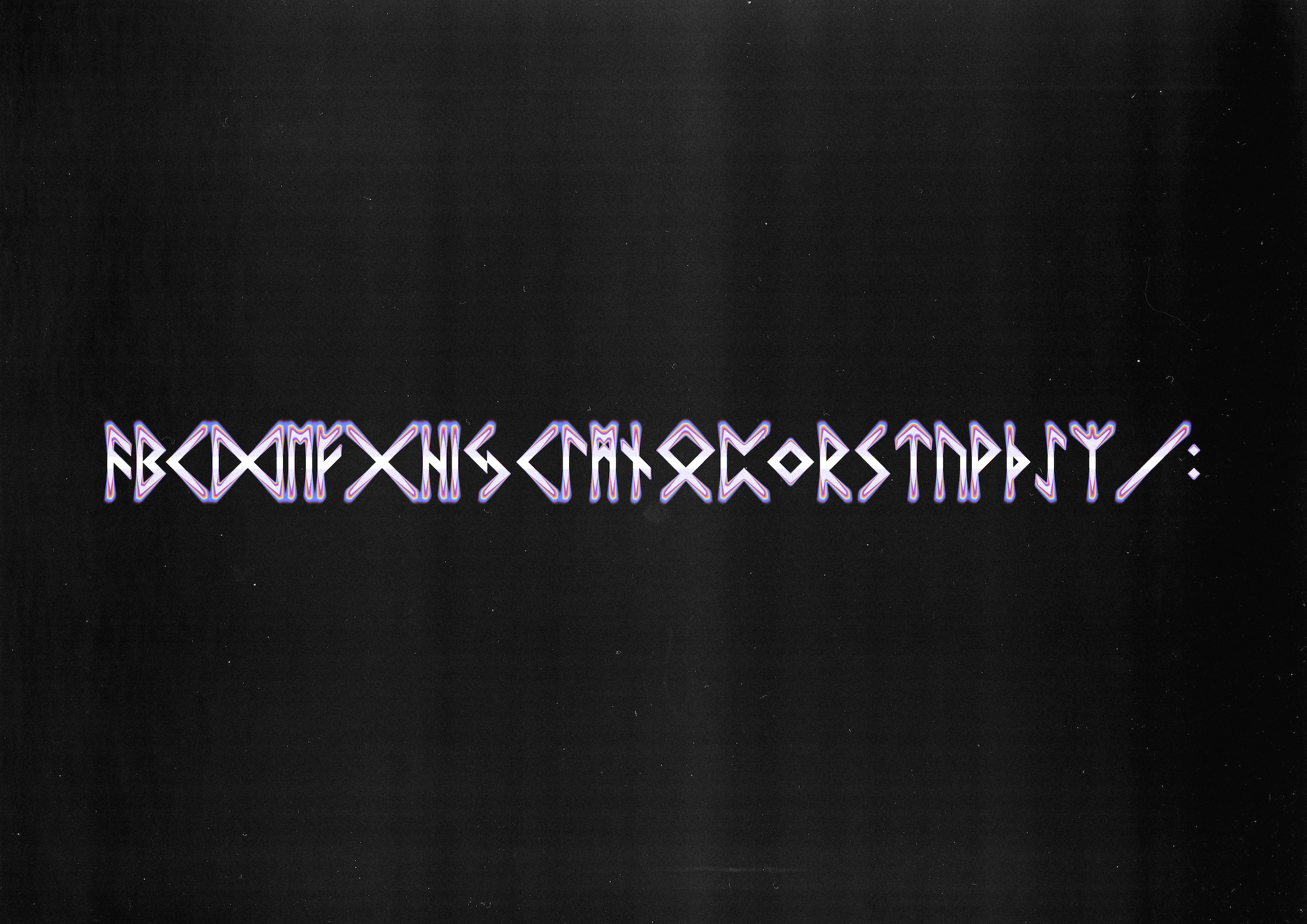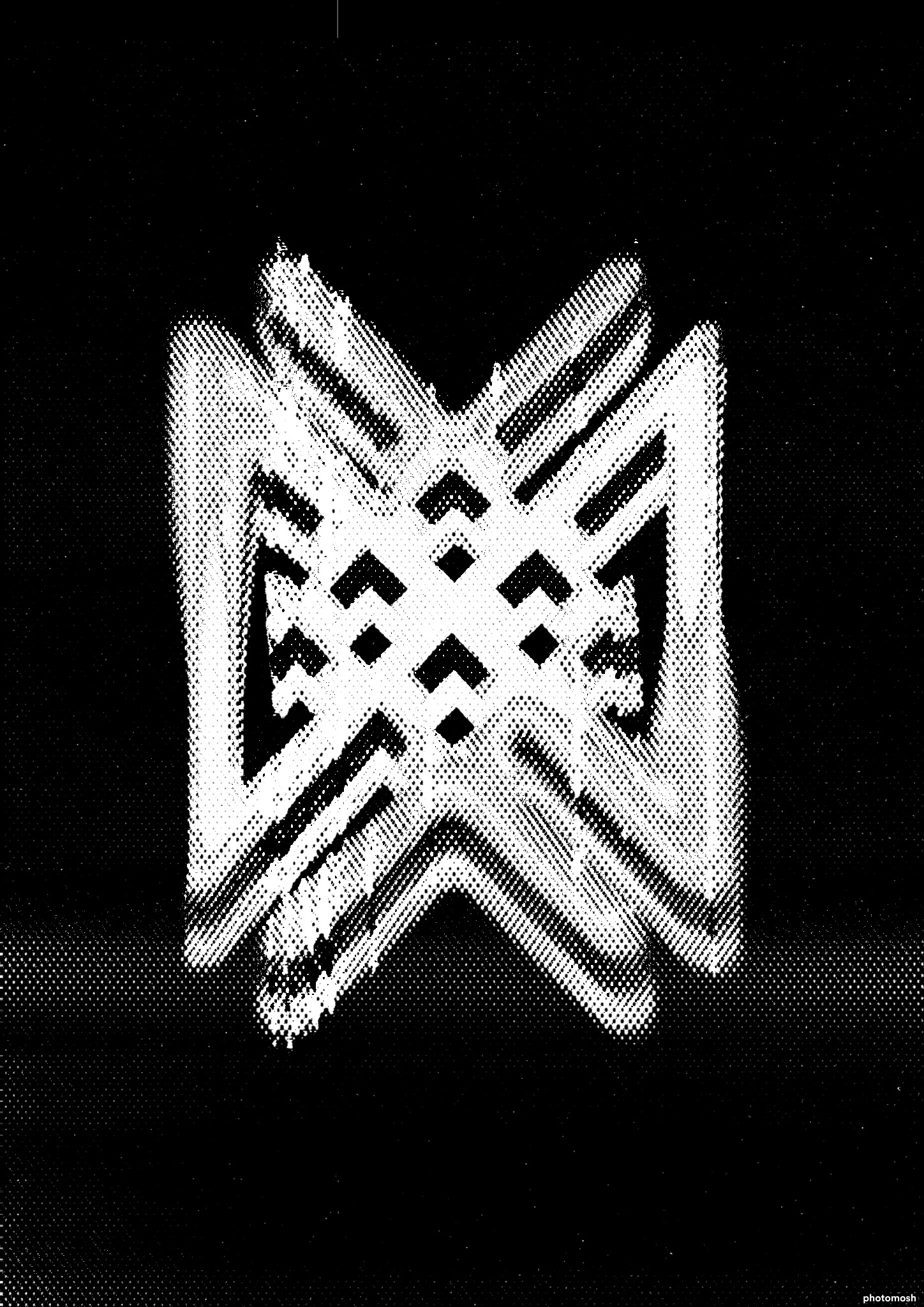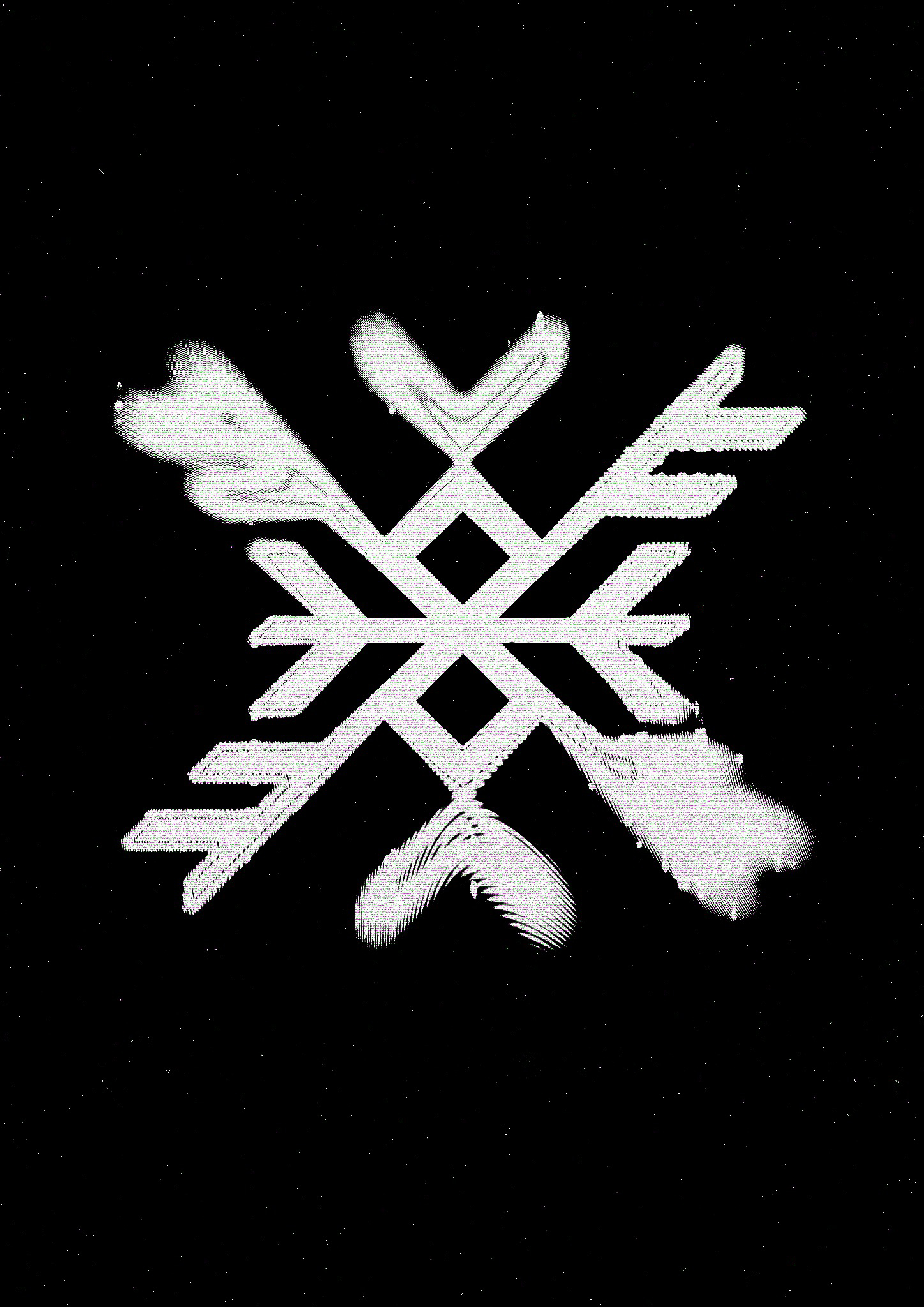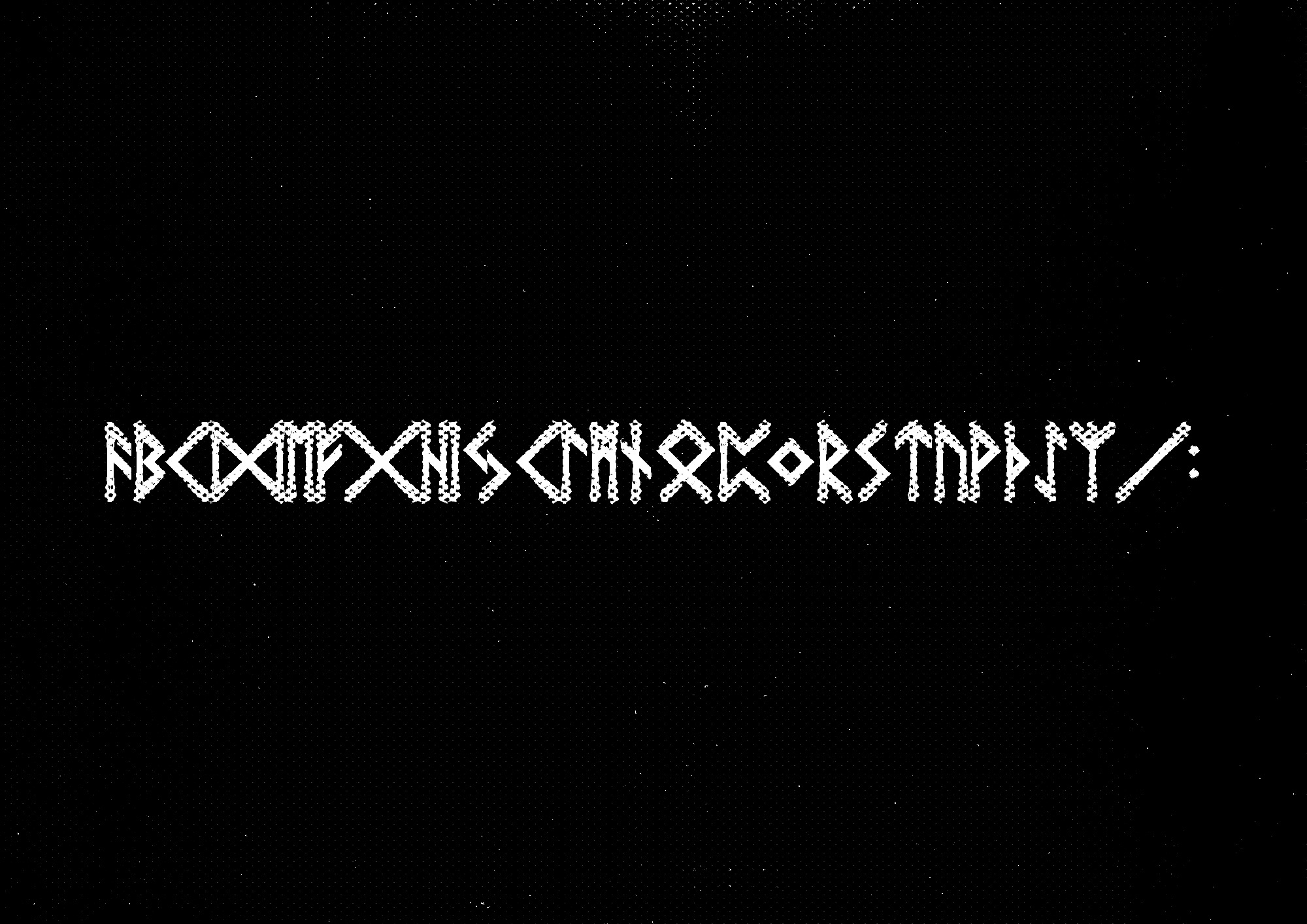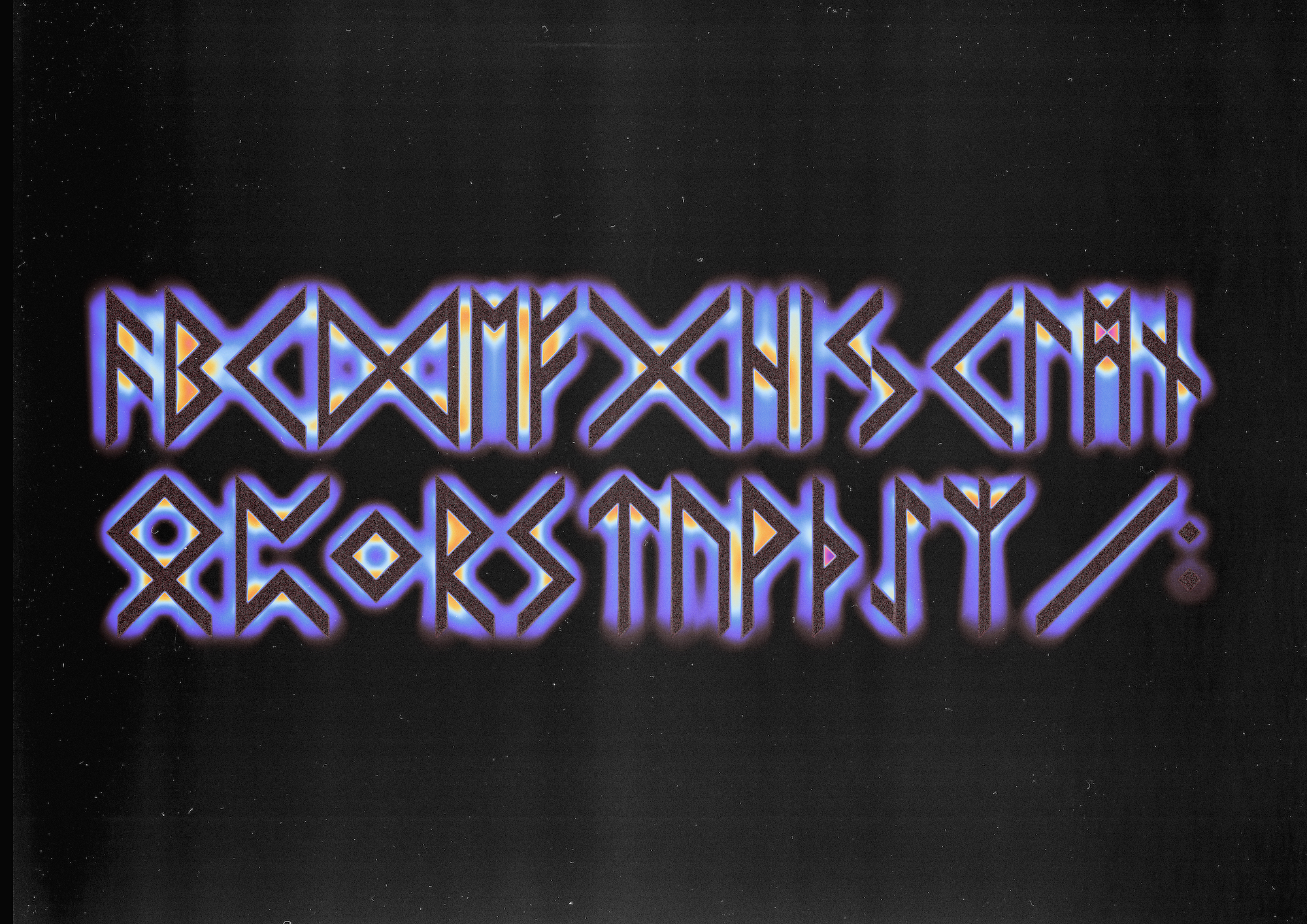
Odin Betamax Typeface
A retrowave runic futhark font. ‘Cause vikings + the 80s had like totally stuff in common y’know dude. Awesome hair, heavy metal, uhhhh... lot’s of screaming? Some totally rad + bloody crazy times *ahem*.